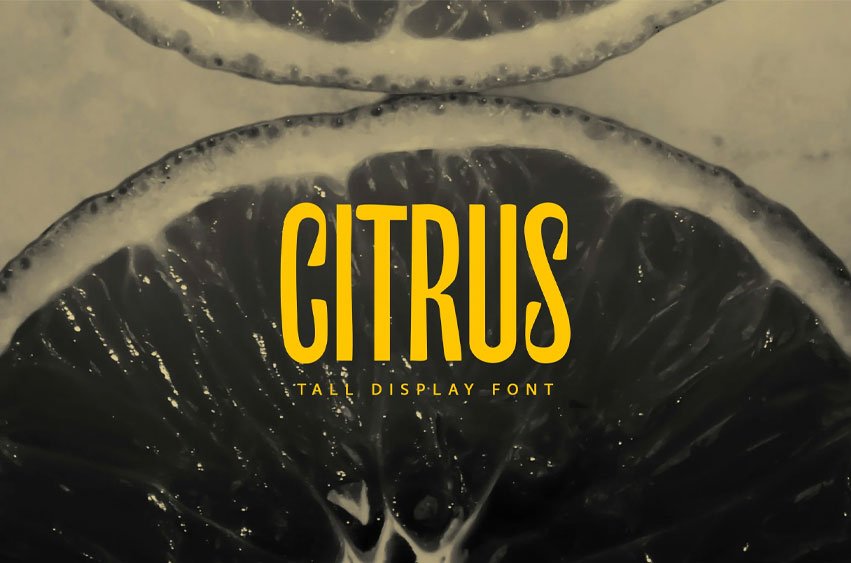
Citrus Tall Font is a tall retro display font with narrow letterforms, playful vintage curves, and a bold sunny personality.
Perfect for posters, logos, packaging, stickers, social media graphics, and editorial designs.